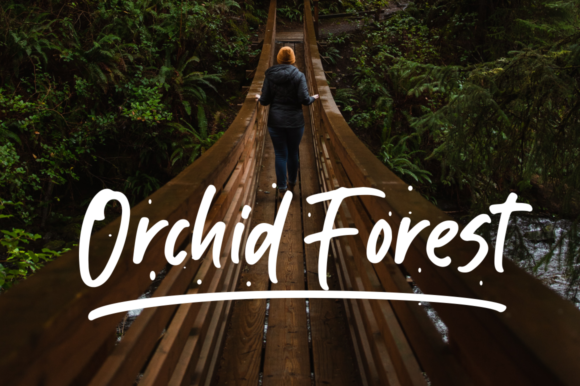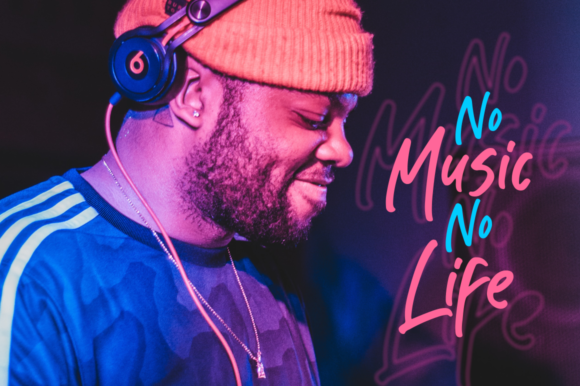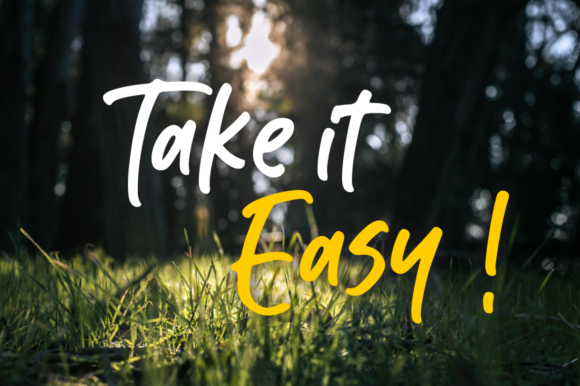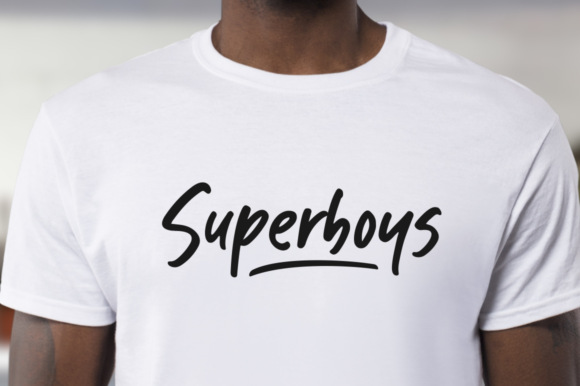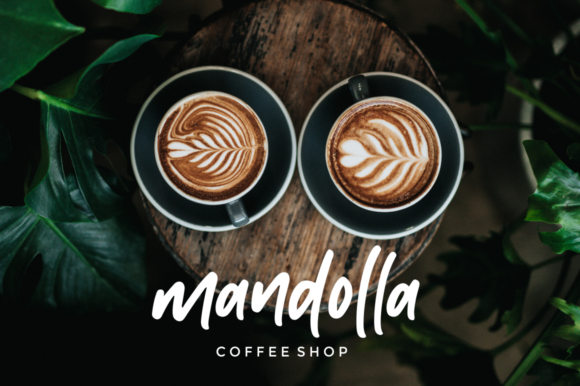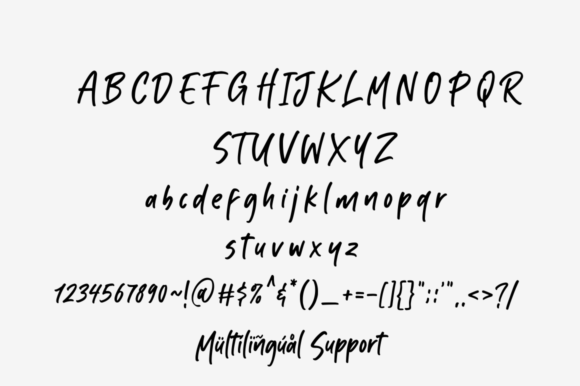
HomeScript FontsKabut Hitam Font Script Fonts Kabut Hitam Font FacebookXPinterestWhatsApp Kabut Hitam Font Poster 2 Kabut Hitam Font Poster 3 Kabut Hitam Font Poster 4 Kabut Hitam Font Poster 5 Kabut Hitam Font Poster 6 Kabut Hitam Font Poster 7 Kabut Hitam Font Poster 8 About Kabut Hitam Font Kabut Hitam is a light and playful script font, perfect for adding a bold and modern feel to any design project. DOWNLOAD ON CREATIVE FABRICAThis font is sold and delivered by Creative Fabrica. Font Canyon may earn a commission if you buy through this link. People also explored Calline Font Sweet and Cute Font Higthesta Creative Vibes Font Laks Font This Appeal First Sight Font Rosalia Monogram Font Lollijoy Blizzard Font 353 0 TagsKabut Hitam Font Previous articleEverloved FontNext articleFloristya Font LEAVE A REPLY Cancel reply Comment: Please enter your comment! Name:* Please enter your name here Email:* You have entered an incorrect email address! Please enter your email address here Website: Save my name, email, and website in this browser for the next time I comment. Personal Use Free Sweety Blue Personal Use Free Read more about this font Shrag Script Personal Use Free Read more about this font Broodfath Personal Use Free Read more about this font Lixdu Personal Use Free Read more about this font BLOG Exploring Font Trends Shaping Communication in the Digital Era Fonts, like all design elements, are subject to trends. They play a crucial role in communicating a brand's personality,... Elegant Wedding Invitation Fonts – Handwritten & Script Fonts Fonts That Capture the Spirit of New York City Where to Buy American Fonts Online in 2024